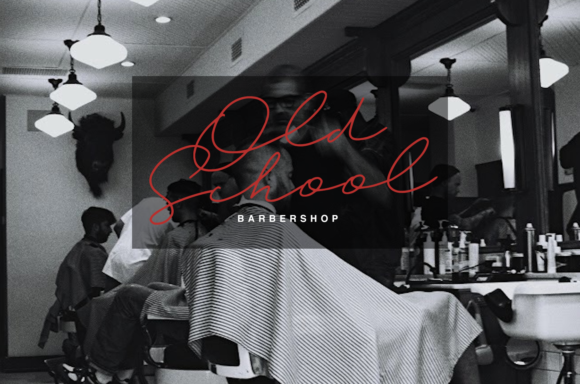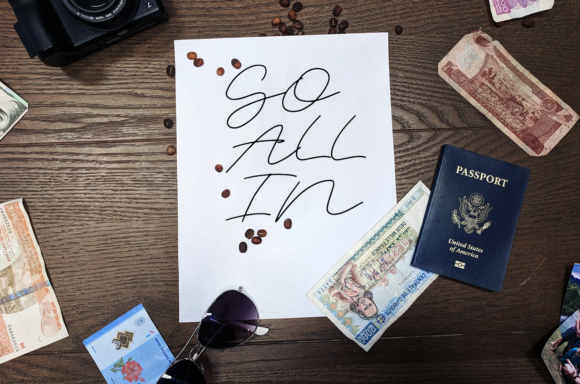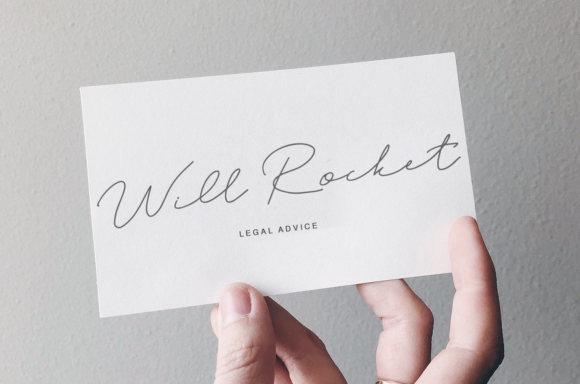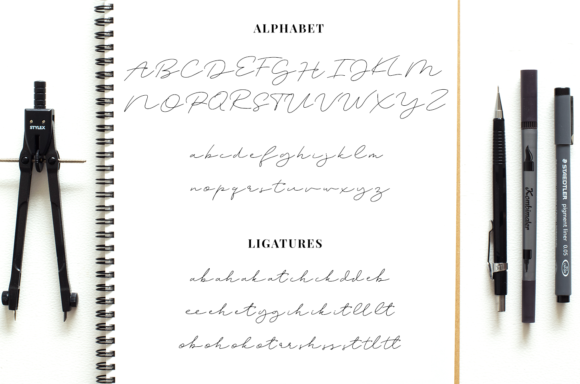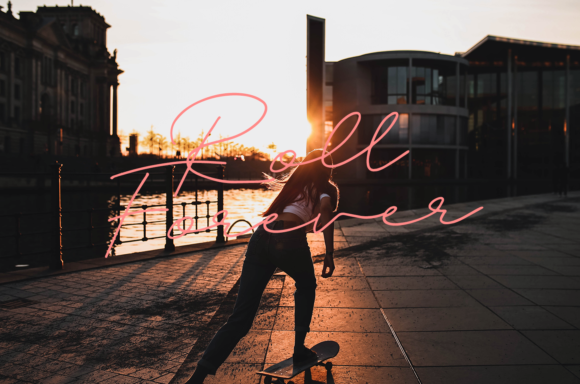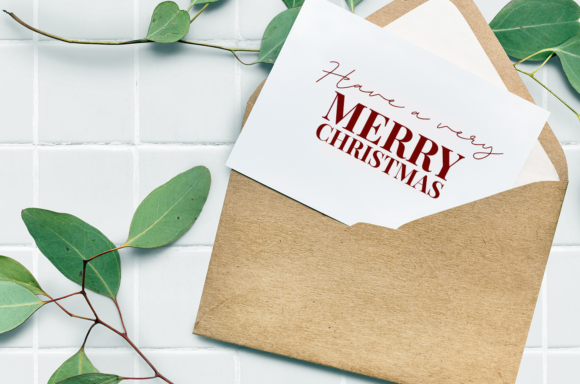
HomeScript FontsUnforgiven Font Script Fonts Unforgiven Font FacebookXPinterestWhatsApp Unforgiven Font Poster 2 Unforgiven Font Poster 3 Unforgiven Font Poster 4 Unforgiven Font Poster 5 Unforgiven Font Poster 6 Unforgiven Font Poster 7 About Unforgiven Font Unforgiven is a sweet and simple script font that will turn any design project into a true standout! DOWNLOAD NOW People also explored Arra Yasmine Font Nextart Bold Font Jacqualine Font Blankjuice Font New Design Font Saggie Font Love Groovy Font Quintella Font Bonjour Allgera Duo Font 584 0 TagsUnforgiven Font Previous articleDreamlike Script FontNext articleNaella Font LEAVE A REPLY Cancel reply Comment: Please enter your comment! Name:* Please enter your name here Email:* You have entered an incorrect email address! Please enter your email address here Website: Save my name, email, and website in this browser for the next time I comment. Personal Use Free New System Personal Use Free Read more about this font Dealisya Personal Use Free Read more about this font Ginóra Personal Use Free Read more about this font Burnstown Dam Personal Use Free Read more about this font BLOG Fonts That Capture the Spirit of New York City New York City is more than just a place—it’s an experience, a rhythm, a visual language... The 10 Best Handwriting Fonts to Add Personality to Your Designs Exploring Font Trends Using Fonts in Digital Marketing: Tips to Strengthen Your Brand Identity